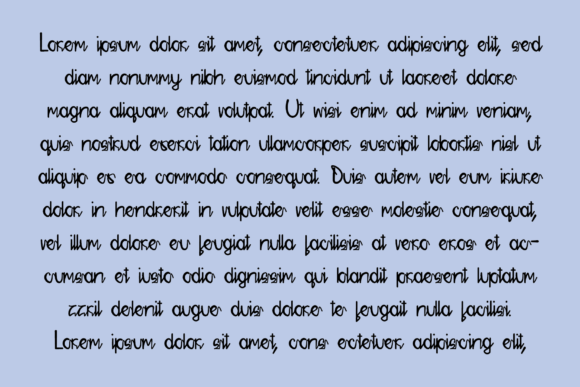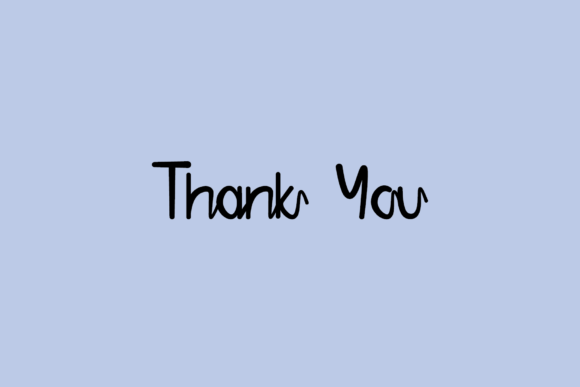
Introduction to Mushroom Land Font
Mushroom Land is a fun and friendly handwritten font.
Whimsical and a bit quirky, this font will brighten up each of your designs Add it confidently to your projects, and you will love the results.
Key Features of Mushroom Land Font